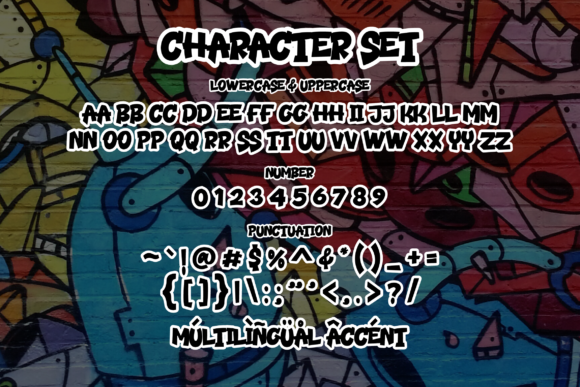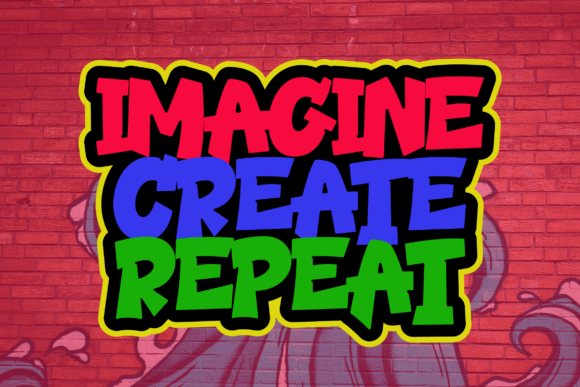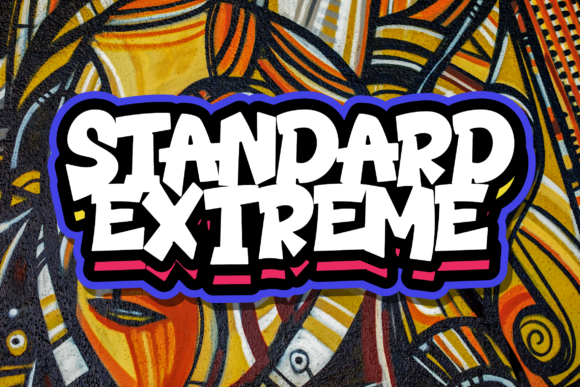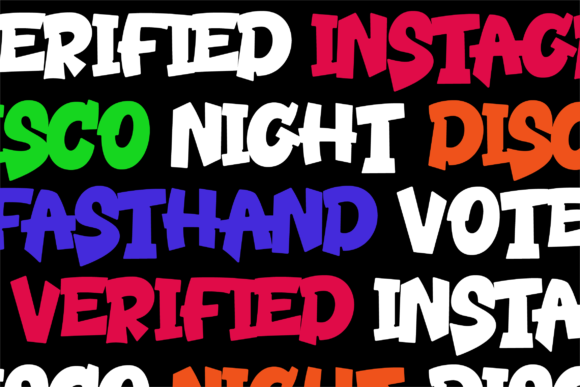
Brocklyns Font: Elevate Your Designs with a Cool, Graffiti-Style Display Font
Are you looking for a font that adds an urban, edgy touch to your designs? Look no further than Brocklyns Font, a cool, graffiti-style display font that’s perfect for creating casual, eye-catching designs. In this article, we’ll explore the features and benefits of Brocklyns Font, and show you how to incorporate it into your urban and casual creations.
What is Brocklyns Font?
Brocklyns Font is a unique, graffiti-style display font that’s inspired by the vibrant streets of Brooklyn. Its bold, edgy design makes it perfect for adding a touch of urban flair to your designs. Whether you’re a designer, crafty DIY enthusiast, or simply someone who loves to create, Brocklyns Font is a great addition to your font library.
Key Features of Brocklyns Font
- Graffiti-style design: Brocklyns Font features a bold, graffiti-style design that’s perfect for creating urban, edgy designs.
- Display font: This font is designed to make a statement, making it perfect for headlines, titles, and other display text.
- Urban and casual vibe: Brocklyns Font is perfect for creating designs that require an urban, casual vibe, such as t-shirts, sportswear, and logos.
- Versatile: This font can be used for a wide range of designs, including advertisements, clothing, and more.
Uses for Brocklyns Font
Brocklyns Font is a versatile font that can be used for a wide range of designs. Here are some ideas to get you started:
- T-shirts and apparel: Add a cool, urban touch to your t-shirt designs with Brocklyns Font.
- Sportswear: Create eye-catching sportswear designs with this bold, graffiti-style font.
- Logos and branding: Use Brocklyns Font to create unique, memorable logos and branding materials.
- Advertisements: Add a touch of urban flair to your advertisements with this bold, attention-grabbing font.
- Clothing and accessories: Use Brocklyns Font to create designs for clothing and accessories, such as hats, bags, and more.
Tips for Using Brocklyns Font
Here are some tips for getting the most out of Brocklyns Font:
- Use it boldly: Brocklyns Font is designed to make a statement, so don’t be afraid to use it boldly and prominently in your designs.
- Experiment with colors: This font looks great in a wide range of colors, so experiment with different colors to find the perfect look for your design.
- Pair it with other fonts: Brocklyns Font can be paired with other fonts to create interesting, dynamic designs.
Brocklyns Font is a cool, graffiti-style display font that’s perfect for adding an urban, edgy touch to your designs. With its bold, eye-catching design and versatile uses, it’s a great addition to any font library. Whether you’re a designer, crafty DIY enthusiast, or simply someone who loves to create, Brocklyns Font is a great choice for your urban and casual designs.